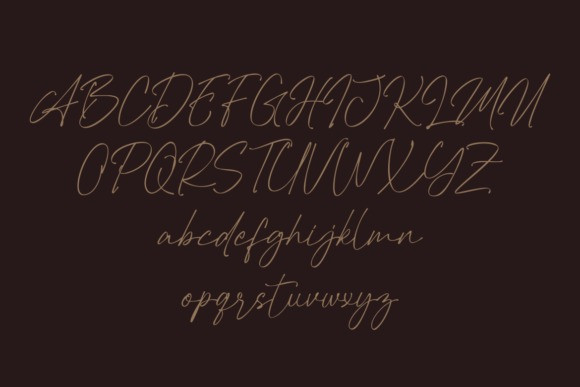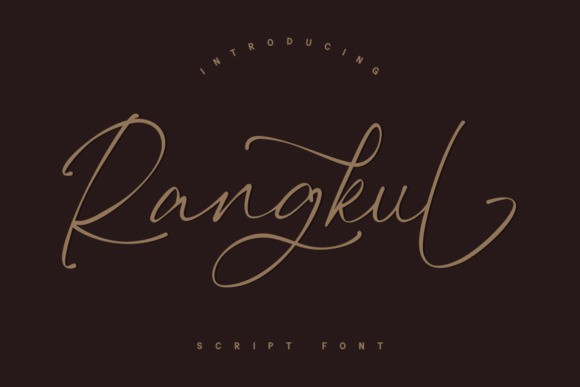
Rangkul Font
Rangkul Script Font, Ideal for logos, handwritten quotes, product packaging, header, poster, merchandise, social media & greeting cards.